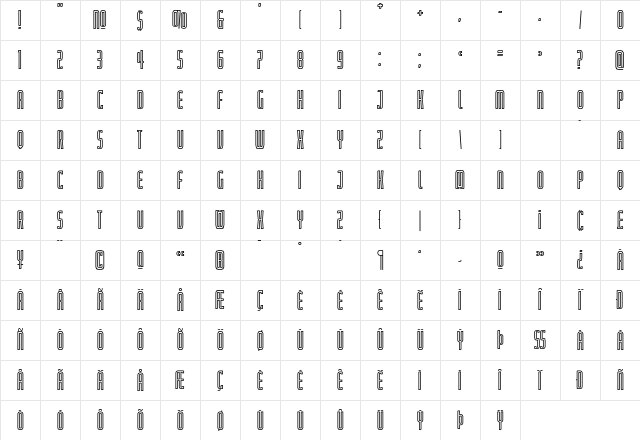
Judgement CompressedInline
Style: CompressedInline
Design Context for Judgement
Judgement is built around its visual character rather than neutral utility - its distinctive forms are designed to make an impression at display sizes.
Font Pairing: Pair with a clean neutral sans-serif for body copy to let Judgement's character lead without overwhelming the composition.
Pro Tip: Use Judgement exclusively at display sizes - it was designed to be seen, not read at length. Let a neutral companion handle body copy.